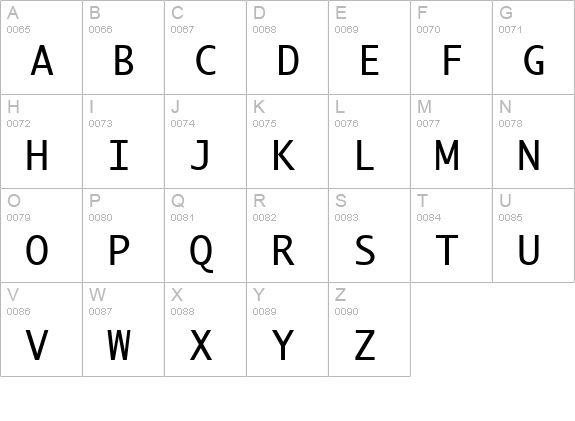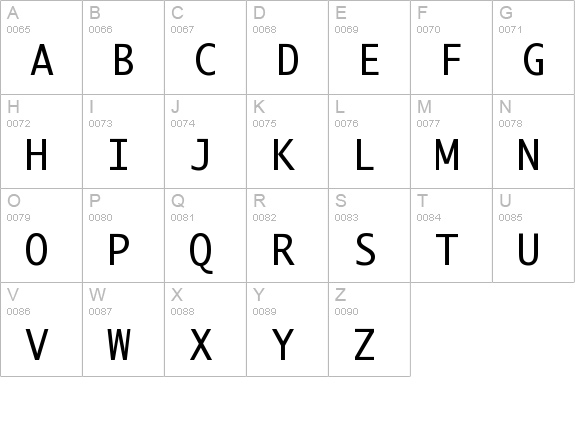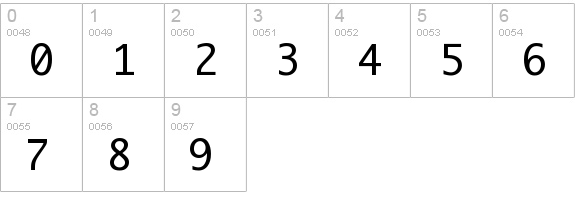
Monaco Font Details
Monaco font is a modern and sleek typeface that exudes elegance and sophistication. With its clean lines and stylish design, Monaco is perfect for a wide range of design projects, from branding to editorial work. This versatile font features a timeless appeal that is sure to make your text stand out. What's even better is that Monaco font is available for free download at FontsMarket.com. You can easily access this beautiful font and enhance your creative projects without any cost. Don't miss out on the opportunity to add Monaco font to your collection and elevate your designs to the next level. Download it today and unleash your creativity with this stunning typeface.